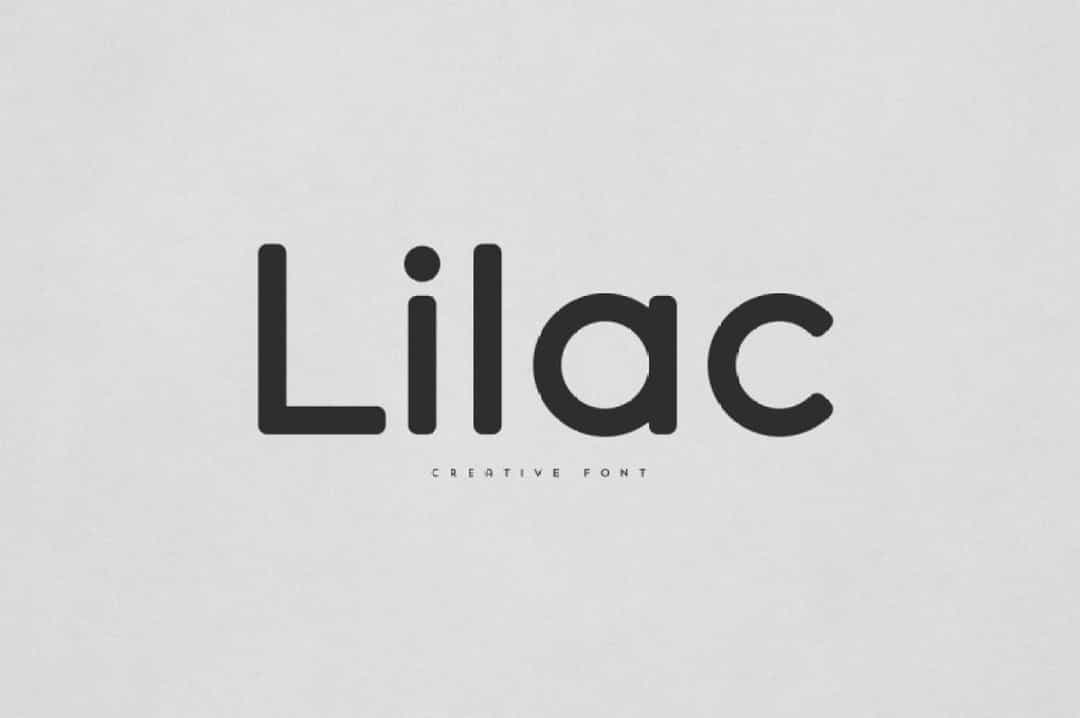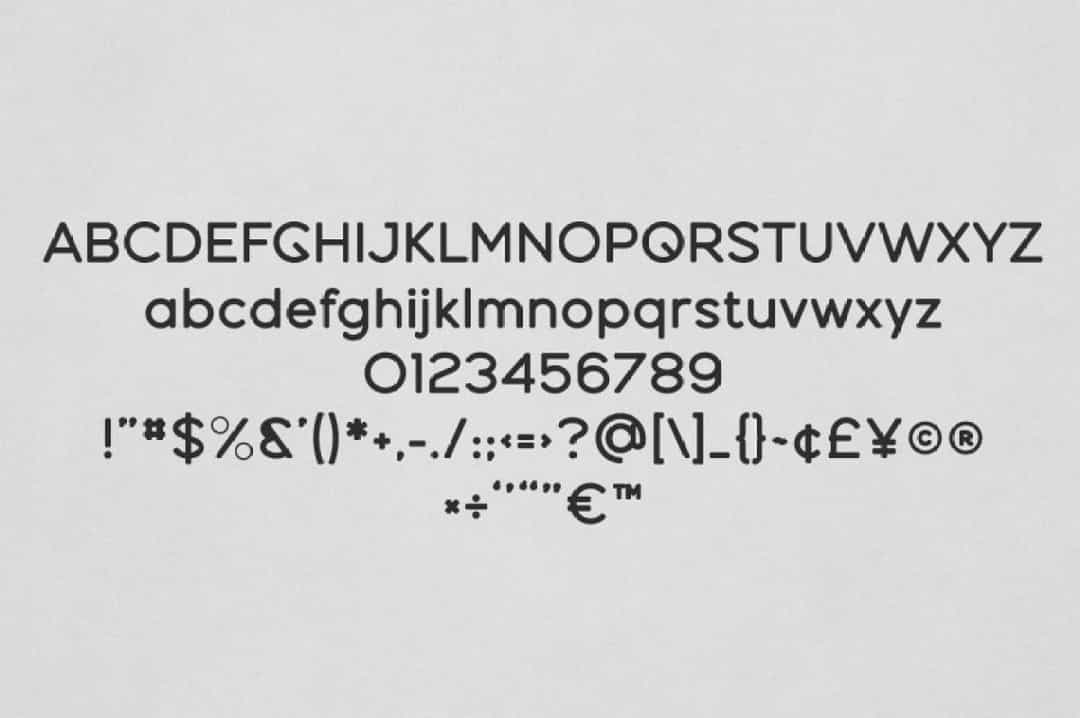
Discover Lilac Font, part of the Sans Serif collection—a versatile and unique font perfect for adding a personal touch to your projects. Download it for free and enjoy crafting designs with style, from invitations to social media posts. This font is available exclusively for personal use, giving you the freedom to create without limits. Unlock your creativity with Lilac Font today!
Lilac is an elegant and flexible sans serif font that will add flair to any typographic project! Perfect for headlines, logos, branding or simple text – Lilac will draw the eye with its sophisticated lines that are sure to enchant any viewer!